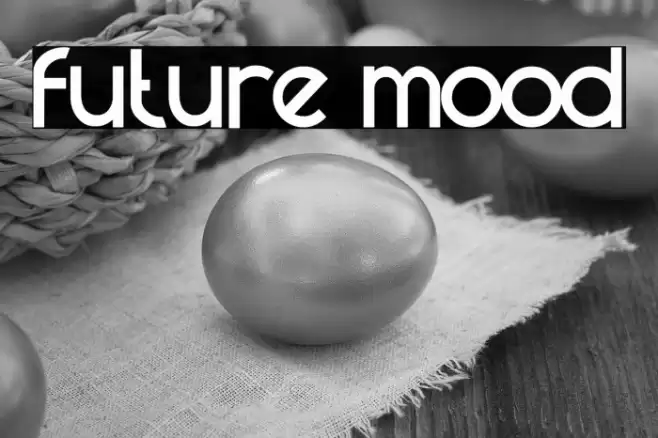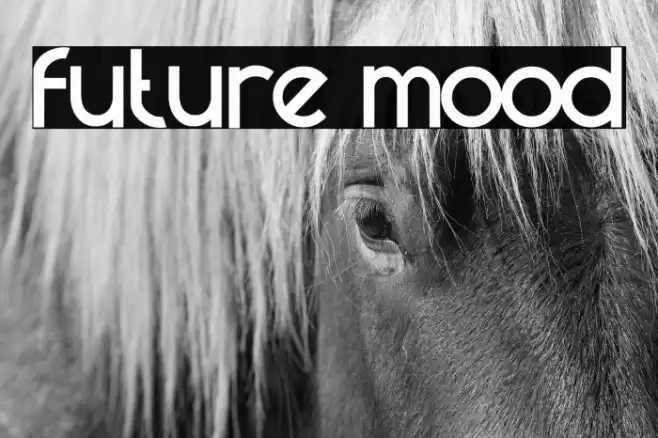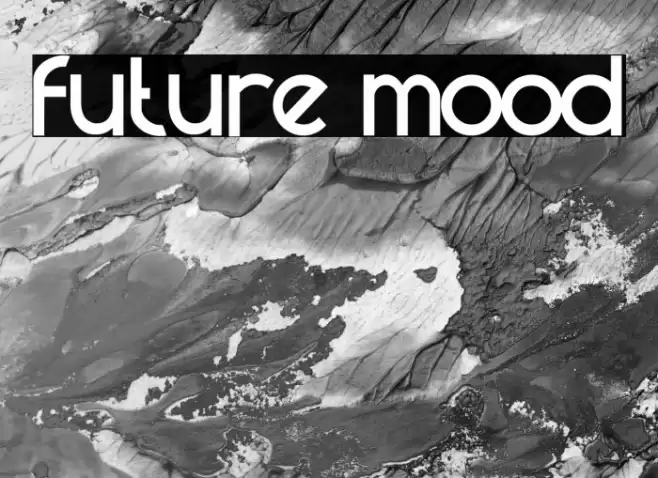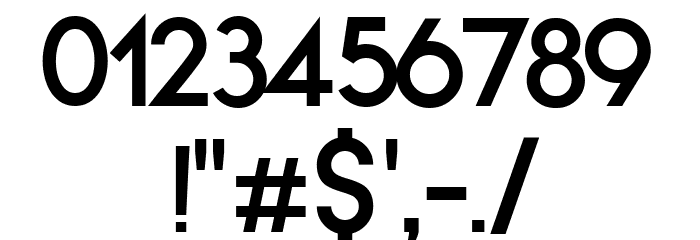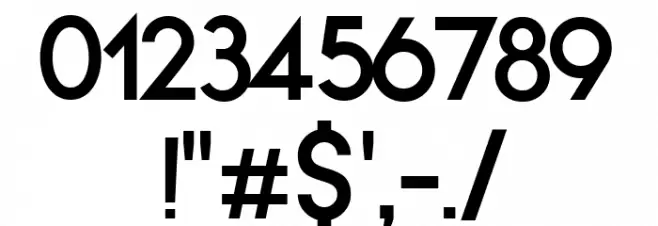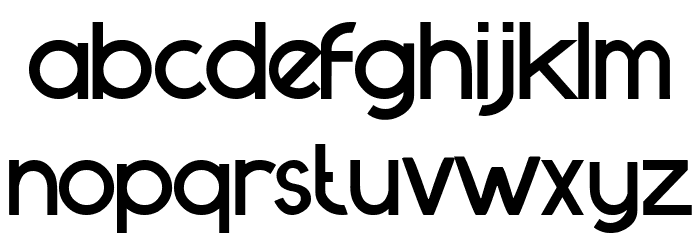
future mood Font
future mood Description
This font features a modern and sleek design with clean, geometric lines and a uniform stroke width. The characters are well-balanced with a slightly rounded appearance, giving it a friendly yet professional look. The uppercase and lowercase letters maintain a consistent style, with a focus on readability and simplicity. The numerals are clear and distinct, matching the overall aesthetic of the alphabet. Special characters are designed to complement the letterforms, ensuring a cohesive appearance across all text. This font is versatile, suitable for various design applications where a contemporary and approachable feel is desired.
A modern, geometric font with clean lines and a friendly appearance from Regular fonts.
- Proposed Projects: Ideal for branding, advertising, web design, and editorial projects.